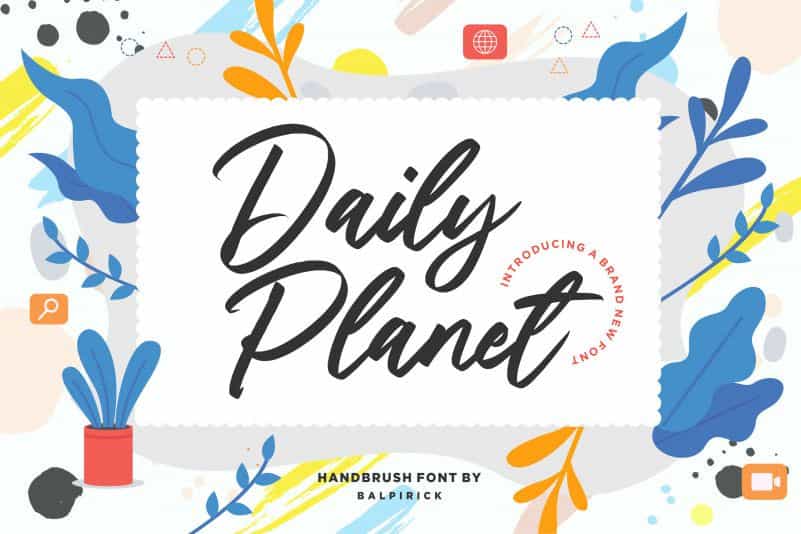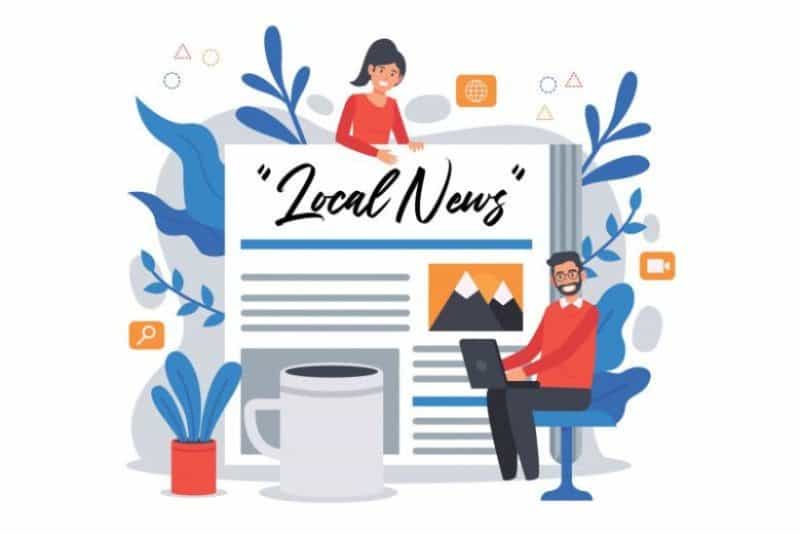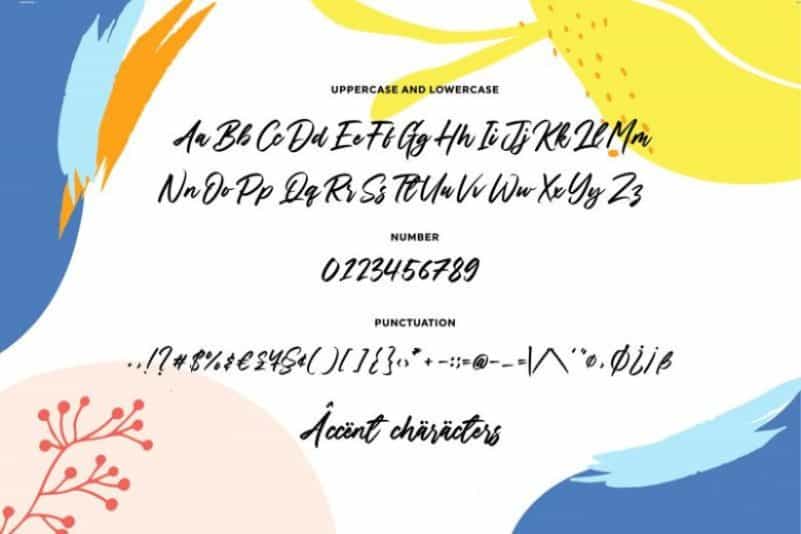
Discover Daily Planet Handbrush Font, part of the Brush Handwritten collection—a versatile and unique font perfect for adding a personal touch to your projects. Download it for free and enjoy crafting designs with style, from invitations to social media posts. This font is available exclusively for personal use, giving you the freedom to create without limits. Unlock your creativity with Daily Planet Handbrush Font today!
Daily Planet is a contemporary brush font which can be used for any title, shop name and logo. and also very good for product packaging, branding, magazine, social media, or just for words over the background.